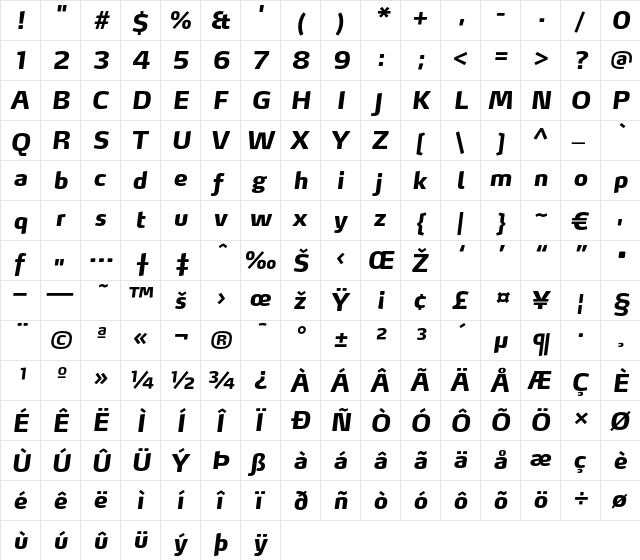
MaxLF-ExtraBoldItalic Regular Font Preview
MaxLF-ExtraBoldItalic Regular
MaxLF-ExtraBoldItalic Regular Font Details
Design Context for MaxLF-ExtraBoldItalic Typeface
MaxLF-ExtraBoldItalic is a composed and adaptable typeface that performs quietly and consistently across a wide range of design contexts. The slanted form adds forward momentum and visual energy. Its bold stroke weight gives it real presence on the page.
Pro Tip: Try MaxLF-ExtraBoldItalic for annotation and caption copy alongside an upright companion — the contrast in angle creates a dynamic but ordered typographic system.